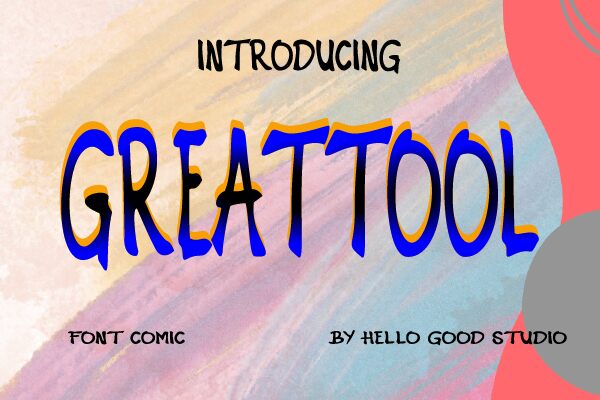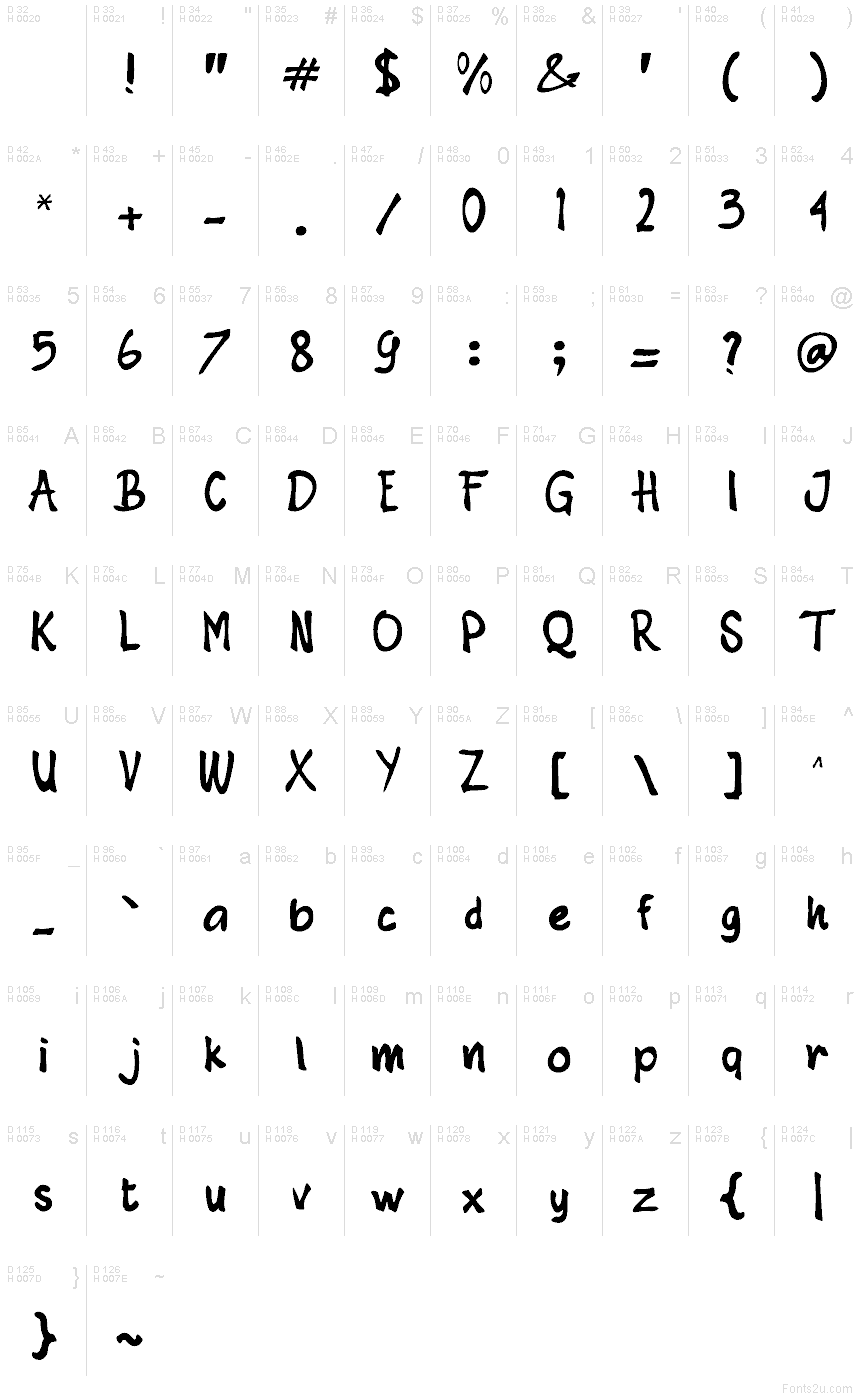
Greattool
Greattool font by Studio Hello Good is a display typeface that embodies a cartoonish charm with its rounded, friendly, and casual characters. Perfectly modern in flair with a relaxed aesthetic, Greattool manages to bring life into every single letterform.